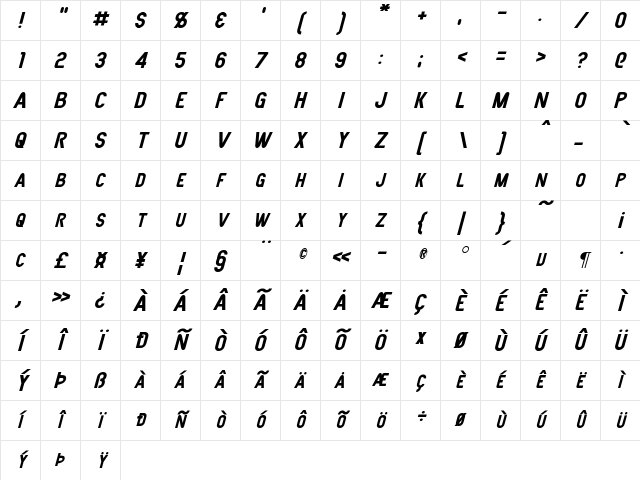
Joystick is a composed and adaptable typeface that performs quietly and consistently across a wide range of design contexts. The slanted form adds forward momentum and visual energy.
Pro Tip: Use Joystick for emphasis, pull quotes, and subheadings where its slanted energy can add rhythm to the layout.